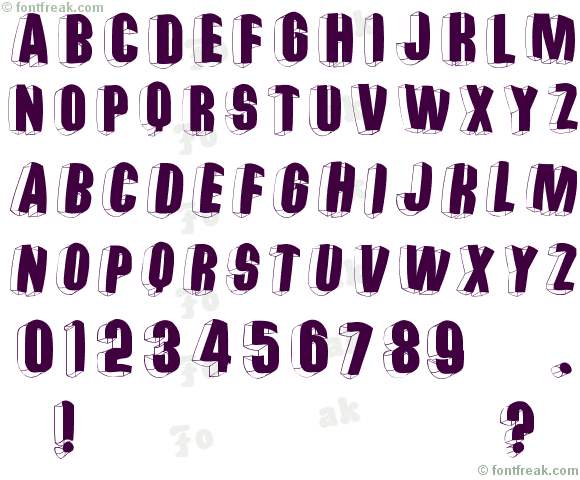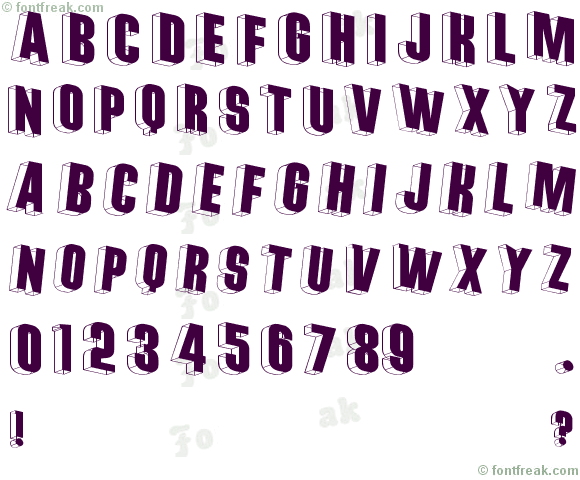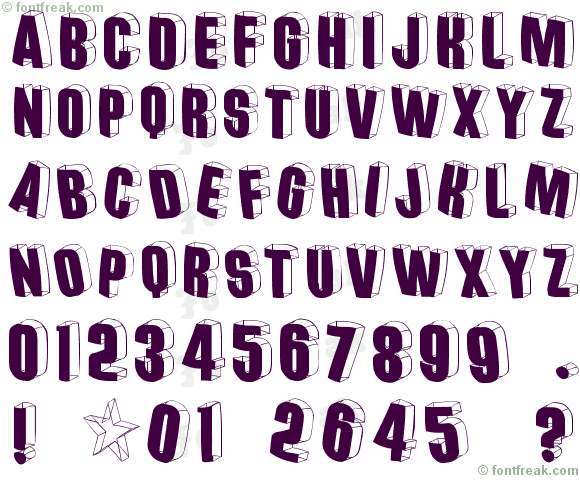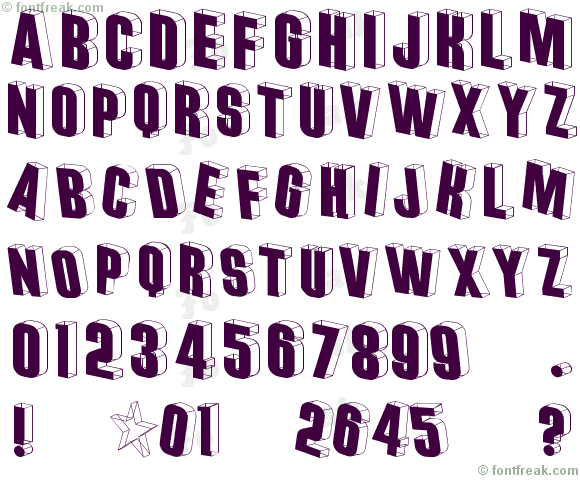
Threedimensional
ThreeDimRightwardsRound
ThreeDimRightwards
ThreedimensionalRound
The Threedimensional font by Manfred Klein is a captivating display typeface that stands out with its unique 3D design. This font falls under the decorative category, offering a playful yet striking appearance that can elevate any project. The visual characteristics of the Threedimensional font include bold stroke weights and a distinctive rightward slant, giving it a dynamic and energetic feel. The letters feature a rounded, block-like structure, enhancing the three-dimensional effect while maintaining readability. The spacing is well-balanced, ensuring that each character retains its individuality without sacrificing coherence in text.
This font is ideal for a variety of creative applications. It works exceptionally well for movie posters, where the boldness can draw attention and convey a sense of excitement. Additionally, Threedimensional is perfect for children's book covers, as its playful aesthetic resonates well with younger audiences. It can also be an excellent choice for promotional materials for events such as festivals or parties, where a lively and engaging vibe is desired. Restaurant menus looking to create a fun and inviting atmosphere can also benefit from this font, helping to highlight special dishes or featured drinks.
What sets the Threedimensional font apart is its ability to combine fun and functionality. The 3D effect not only attracts the eye but also adds depth to designs, making it a compelling choice for a wide range of projects. For those interested in exploring this unique typeface, a Threedimensional font free download is readily available, allowing users to bring this innovative style into their creative endeavors.